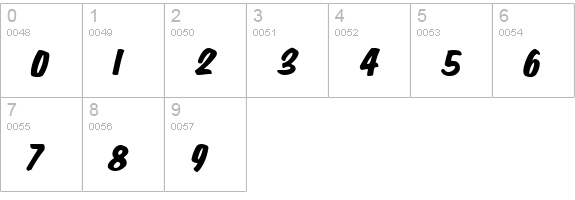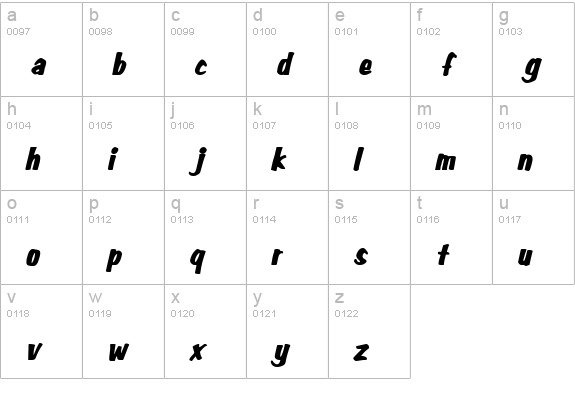
Big Nib Italic is a distinctive, italic variant in the Big typeface family \xE2\x80\x94 well suited to design and typography projects.
Big Nib Italic font is a distinctive and elegant typeface that exudes a sense of sophistication and creativity. The italicized style adds a touch of flair and charm to any text, making it perfect for projects that require a refined and artistic look. With its thick, bold lines and unique design, Big Nib Italic font stands out and commands attention. This font is ideal for a wide range of design projects, from branding and advertising to invitations and greeting cards. Its versatility allows it to be used in both digital and print applications, ensuring that your message is always conveyed with style and impact. Whether you're creating a logo for a luxury brand or designing a wedding invitation, Big Nib Italic font will elevate your work to the next level. Best of all, Big Nib Italic font is available for free download at FontsMarket.com. This means that you can access this stunning typeface without any cost, allowing you to enhance your projects without breaking the bank. Don't miss out on the opportunity to add this beautiful font to your collection and take your designs to new heights with Big Nib Italic font.